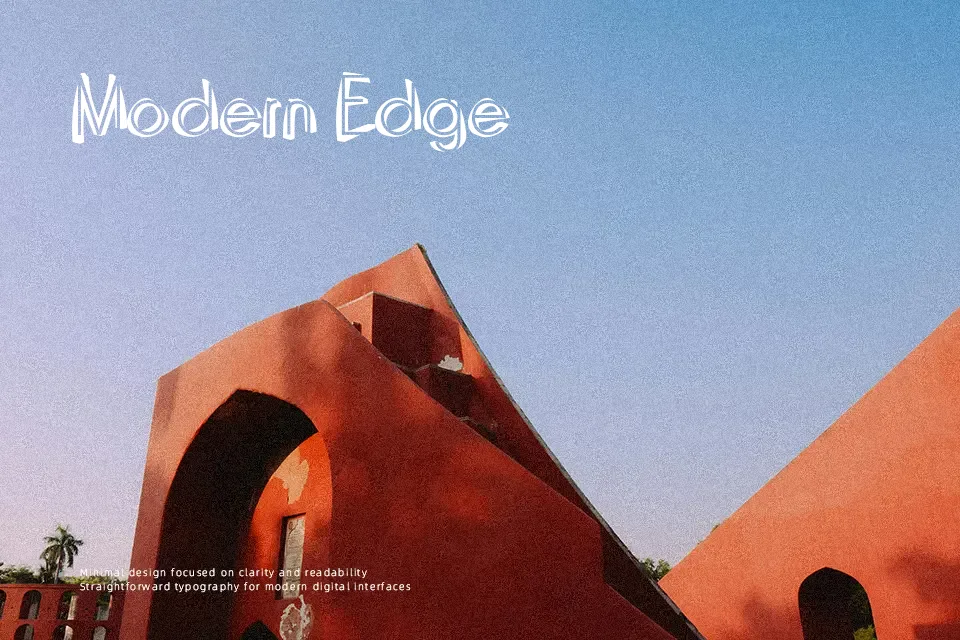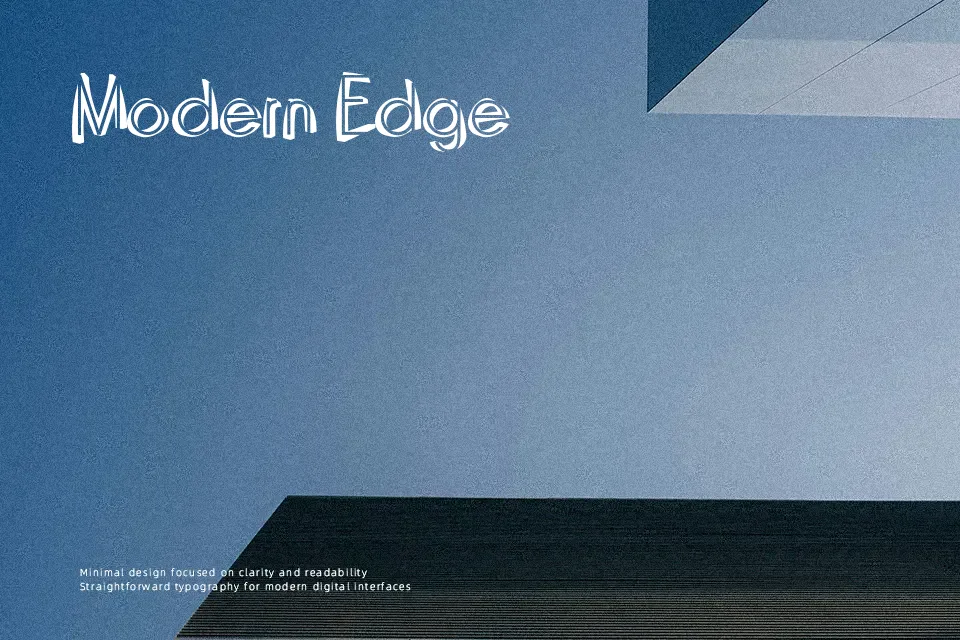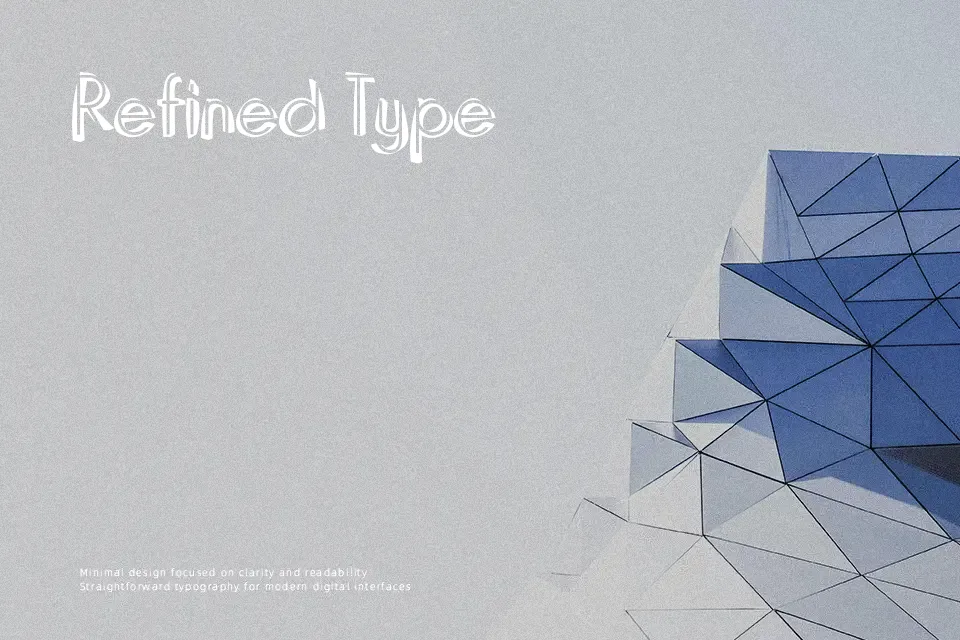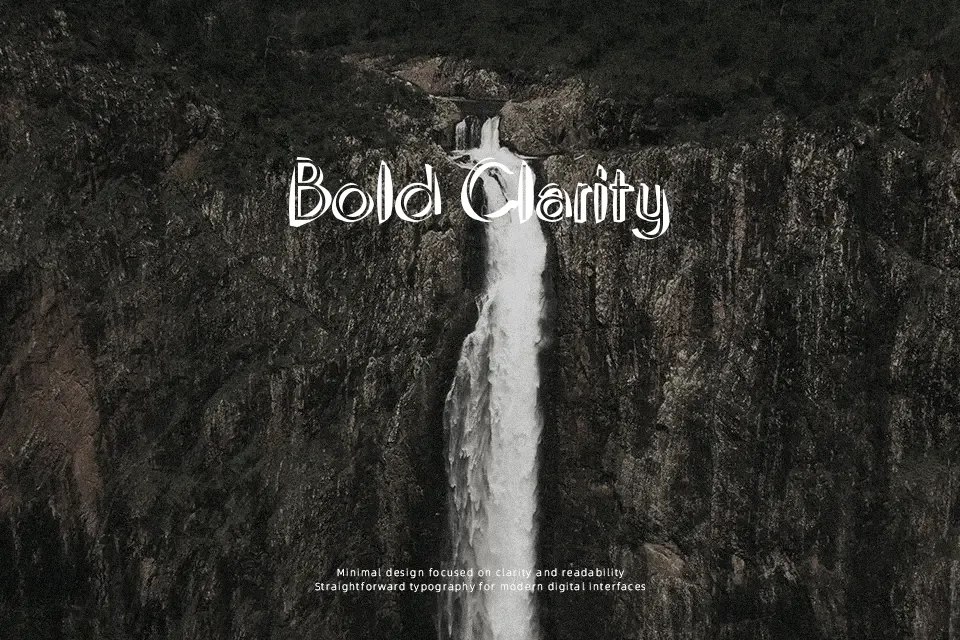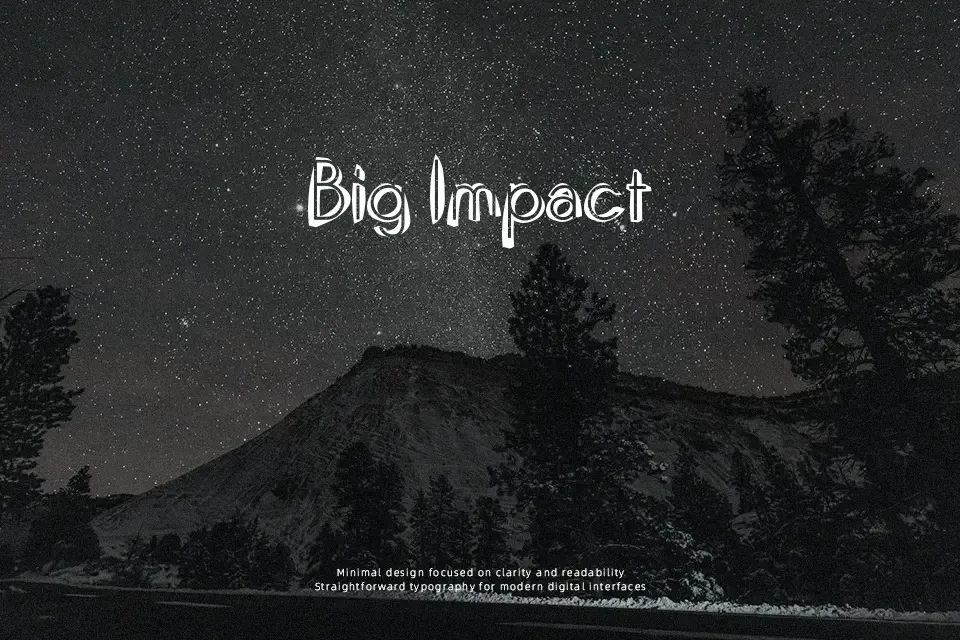
Domino Font
Designed by Luc Mahler
Domino Font leans into a narrow, outlined display style with uneven curves, tall verticals, and a hand-cut feel that keeps it from looking polished or corporate. The letters have enough eccentricity to carry a title on their own, especially in short words, stacked headings, or oversized initials. I would use it for retro nightlife flyers, novelty drink labels, escape room graphics, or chapter openers that need some visual drama without going full horror. It starts to struggle in body copy, dense packaging text, or clean digital interfaces, where the thin internal spaces and quirky construction make reading slower than it should be.
retro nightlife posters, themed drink menus, album titles, novelty packaging
body copy, small app labels, dense legal text, restrained corporate branding
Perfect for headline, music, and packaging, with a artistic and condensed style.